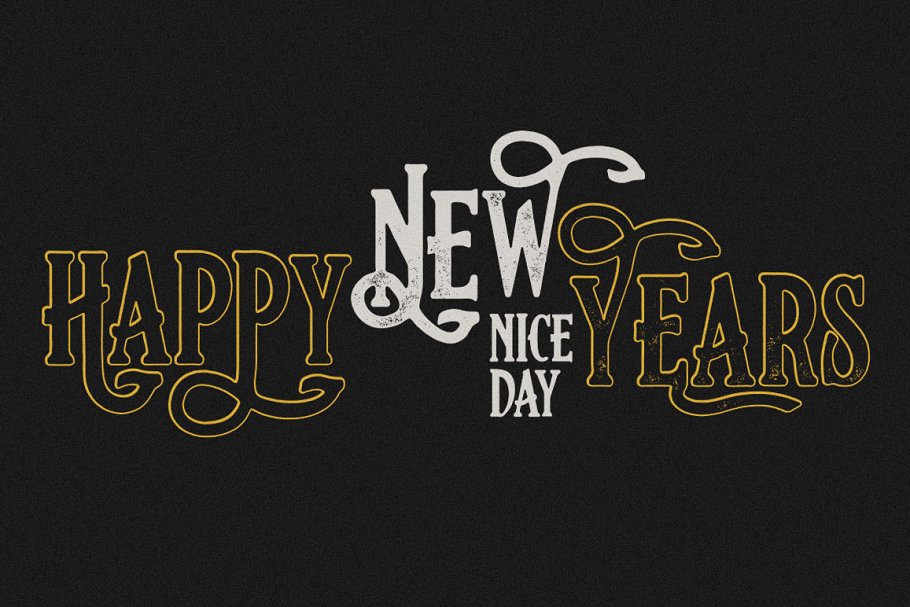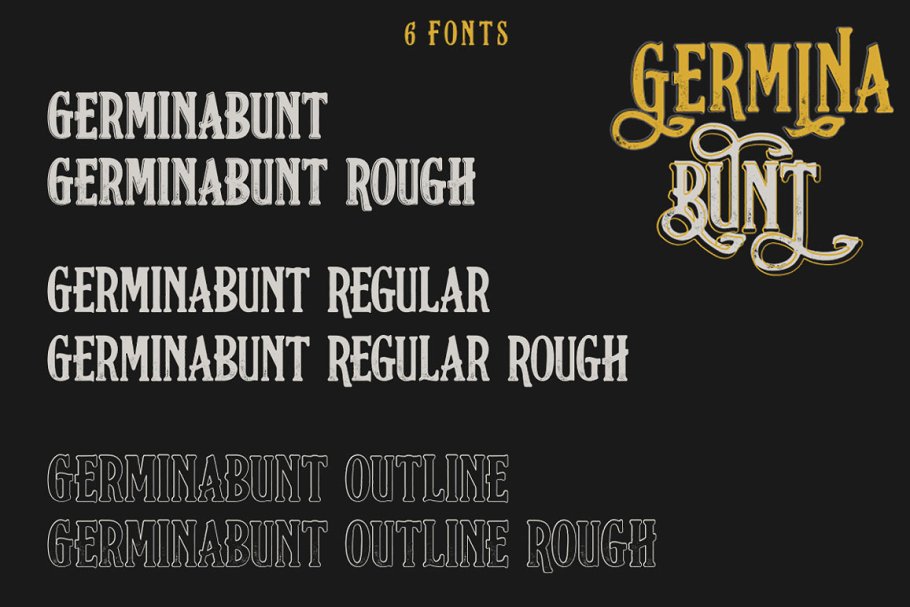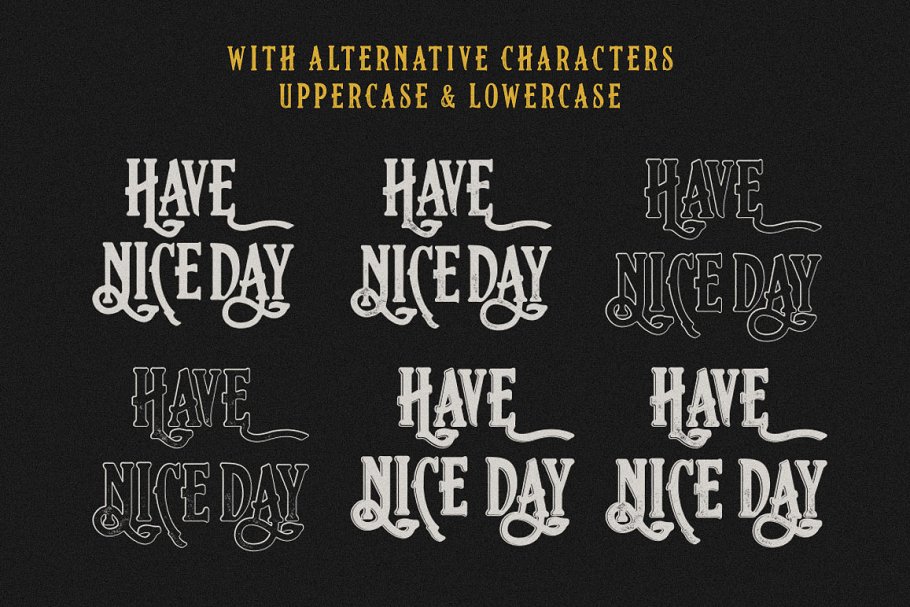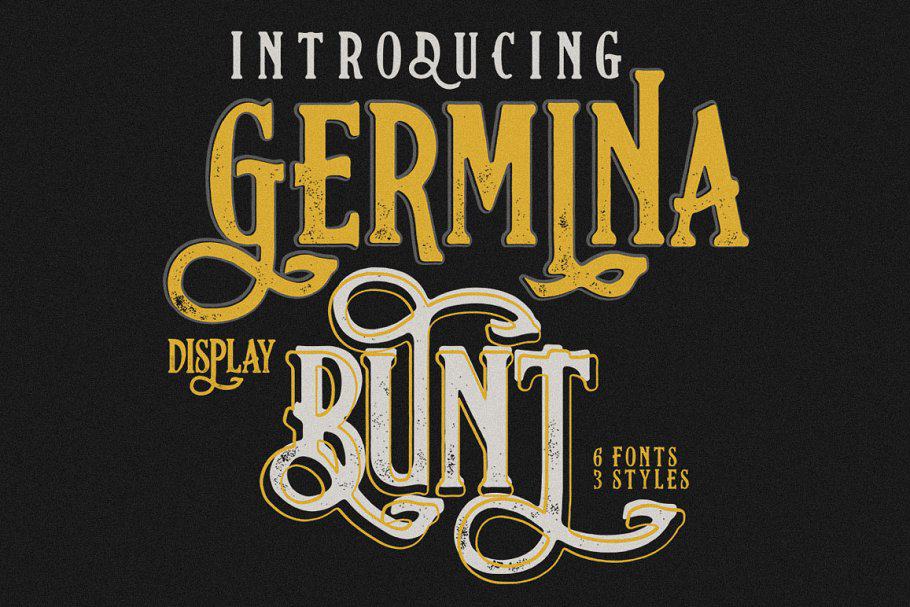
Germinabunt Typeface
Hi Font Lovers! Whether you’re working on modern or classic themed designs, this font is a must have on your designing arsenal. Presenting Germinabunt Font. Germinabunt A handwritten with alternative character. very suitable as to make a design choice for magazines, packaging, branding , website header, posters, greeting cards, letterhead, and many more other creative project.